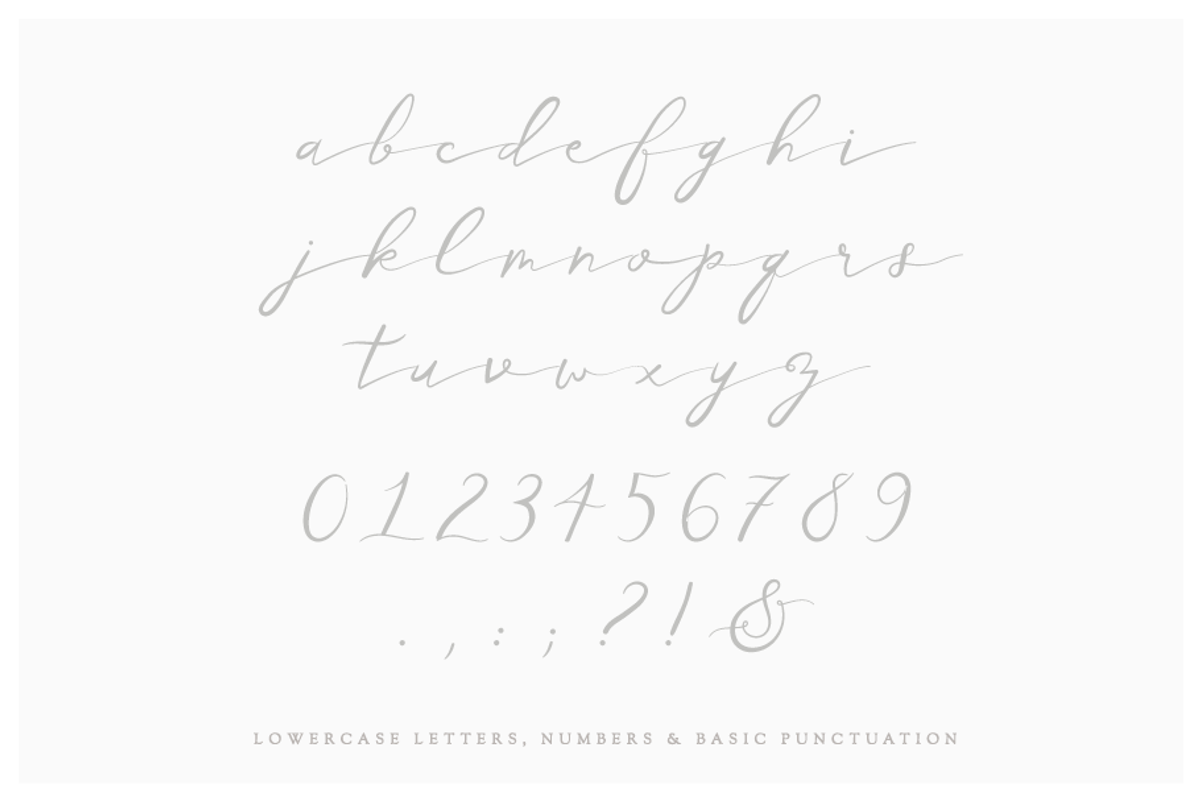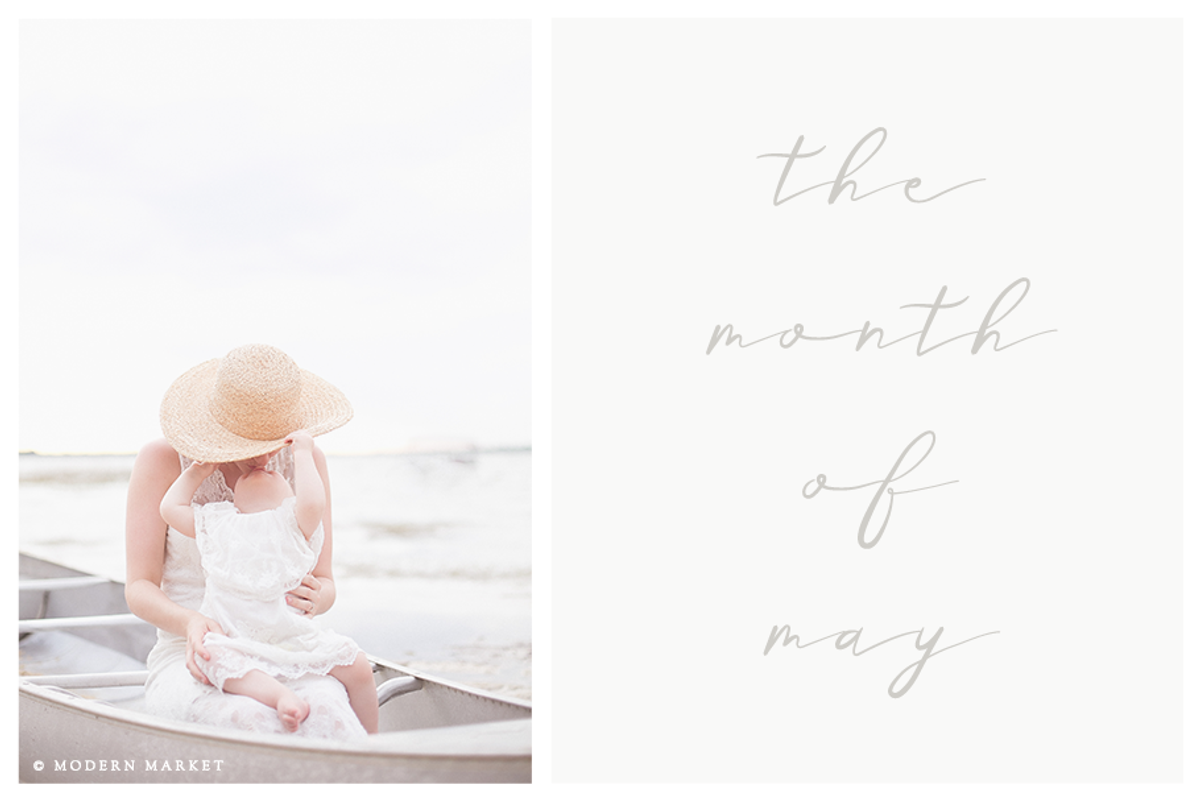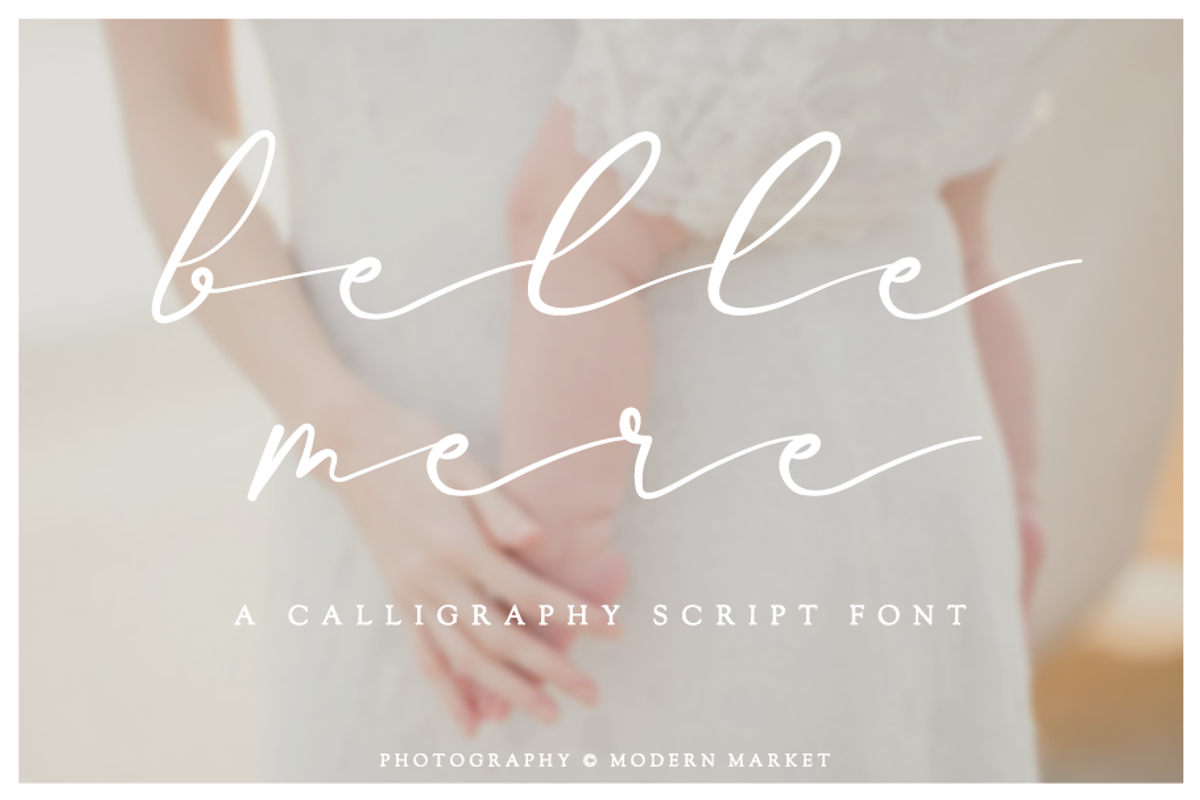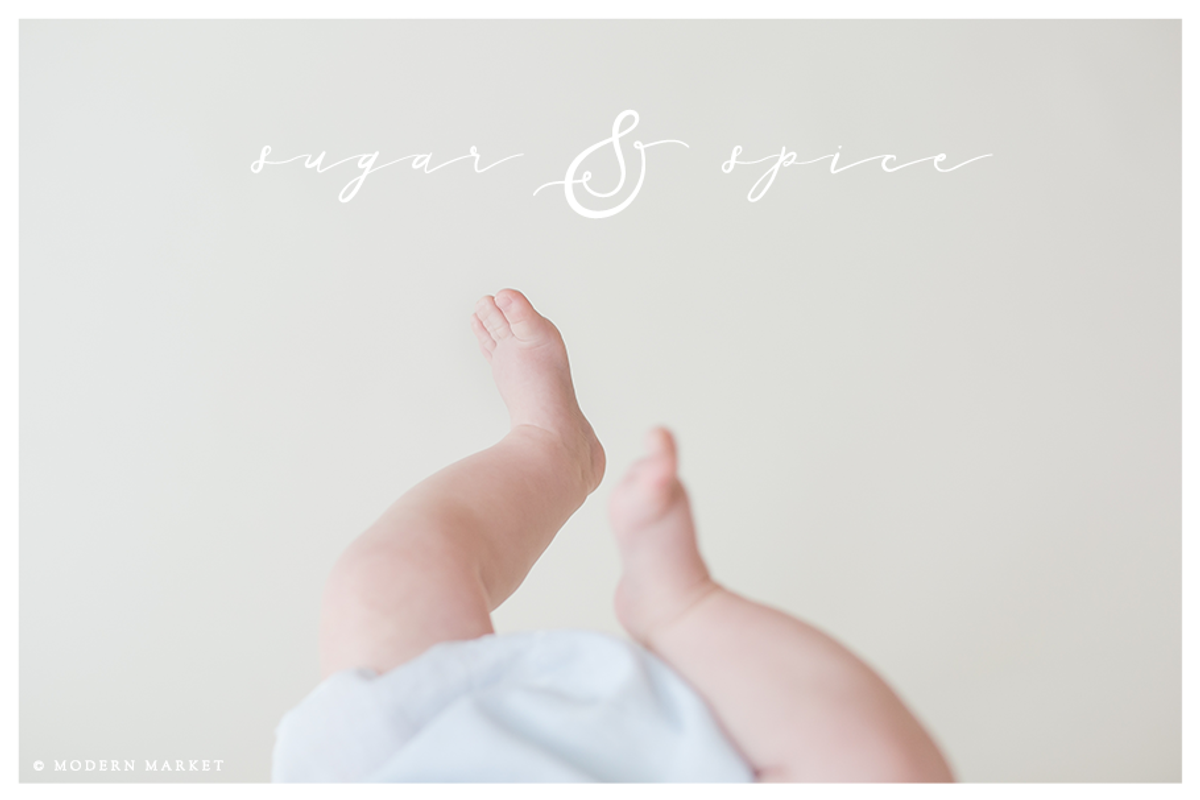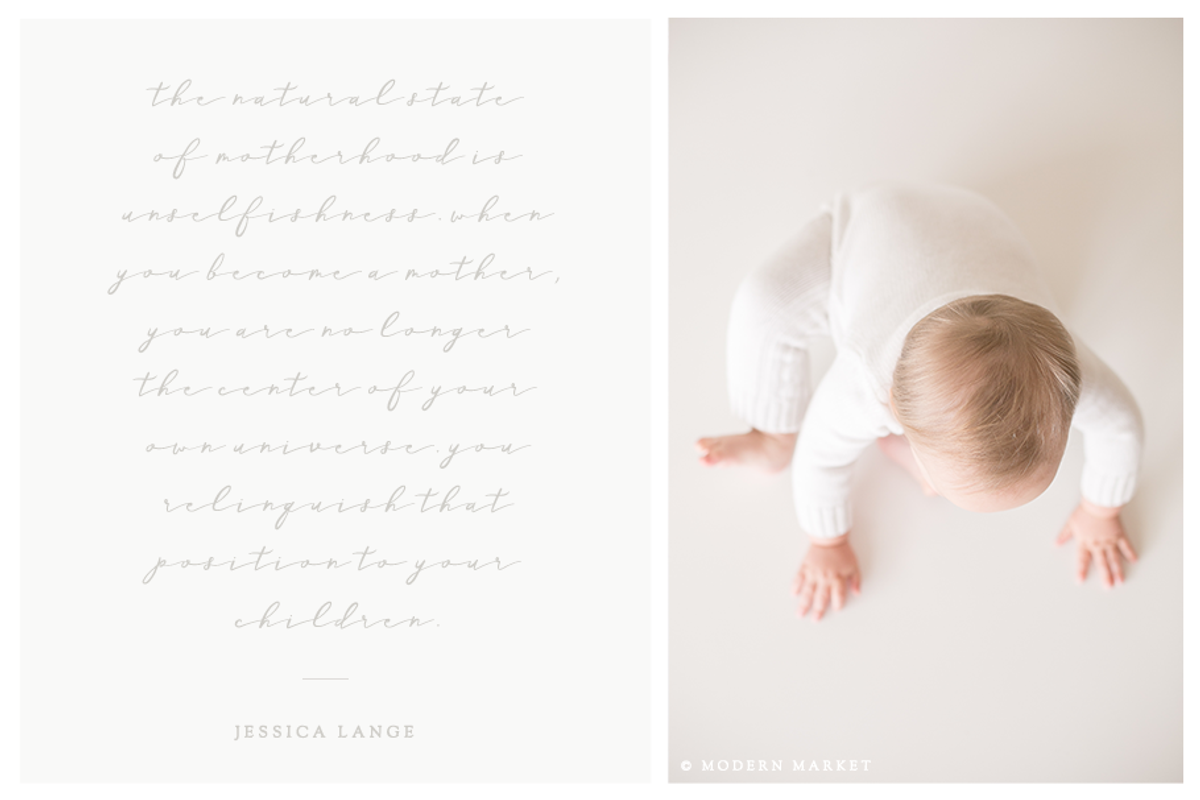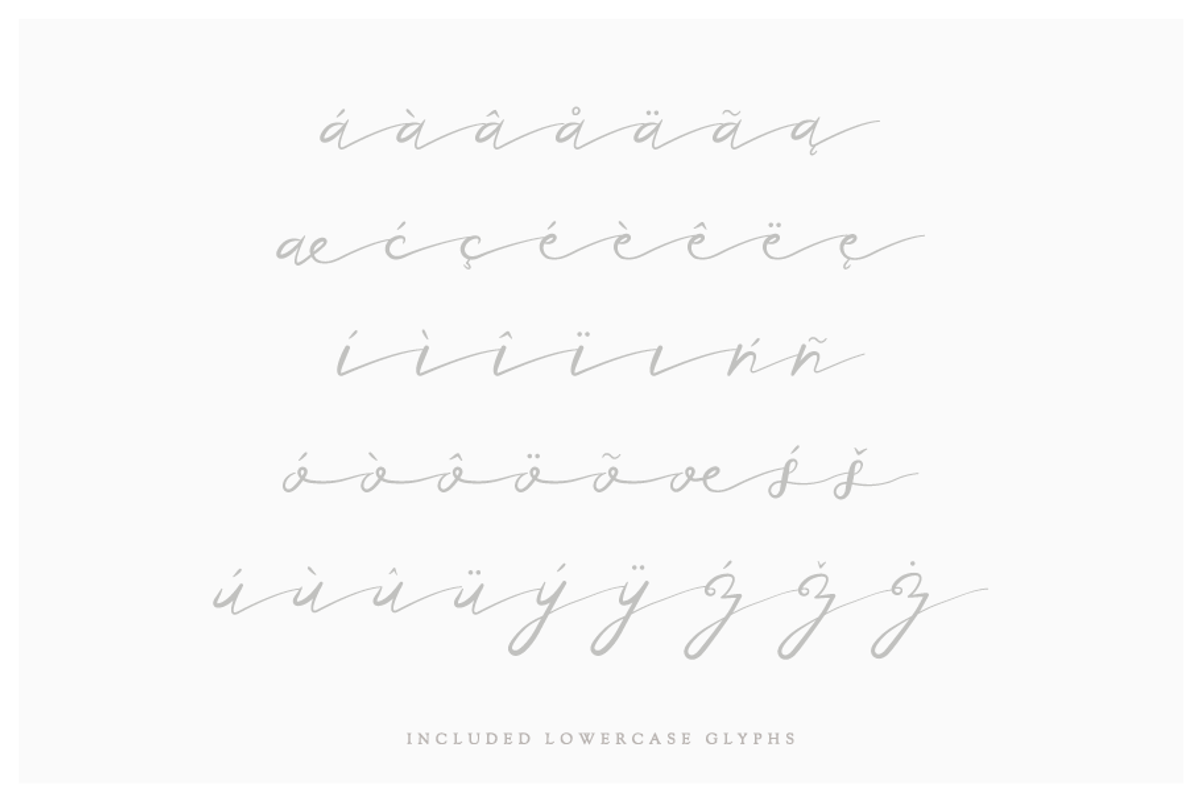
Belle Mere Script Font
Belle Mere is a calligraphy script font, a lovely choice for wedding invitations, branding design or anything you dream up! It includes all lowercase letters A-Z, numbers 0-9, basic punctuation, a variety of lowercase glyphs and pairs perfectly with our Belle Mere ProPhoto 6 or ProPhoto 7 Website Template!